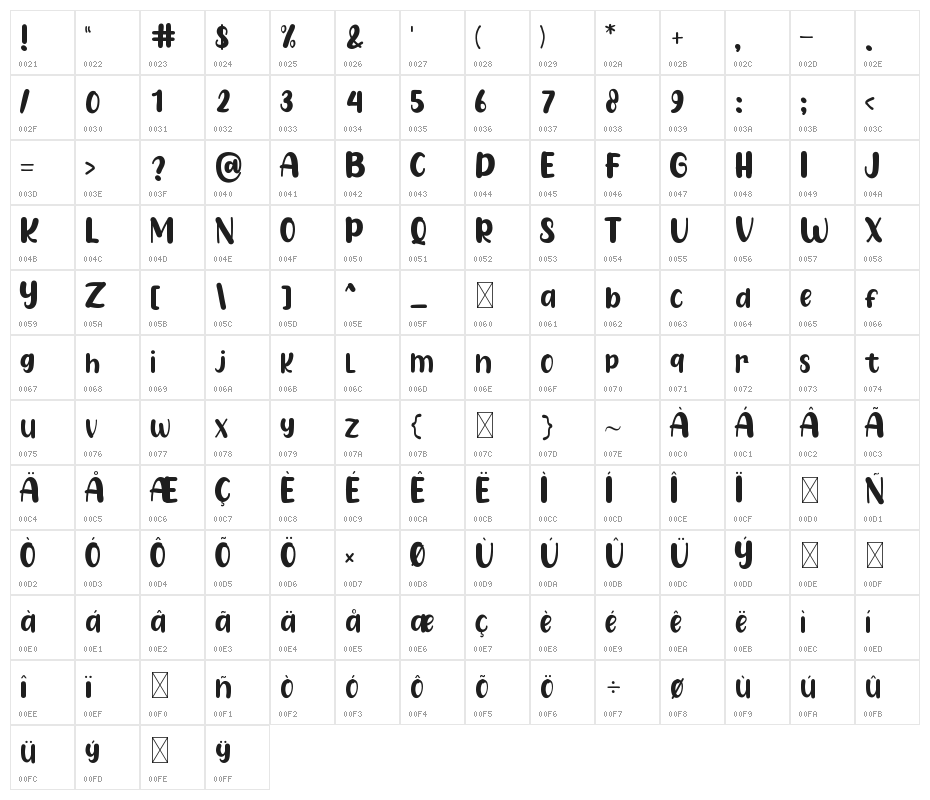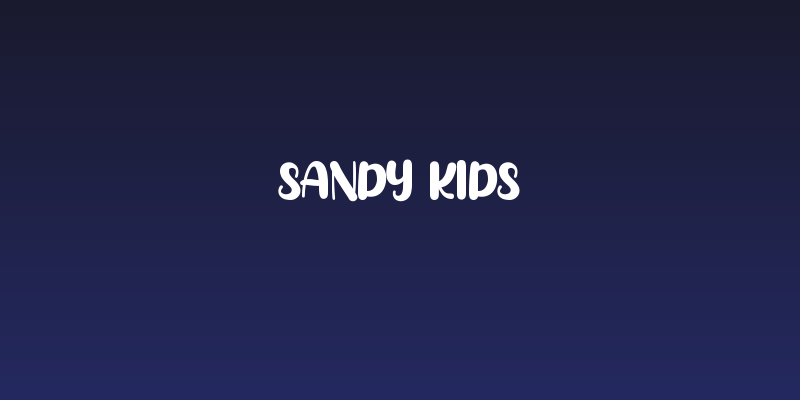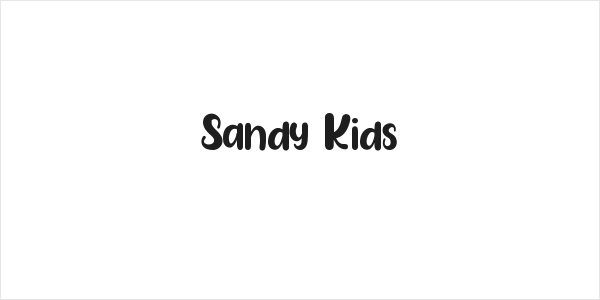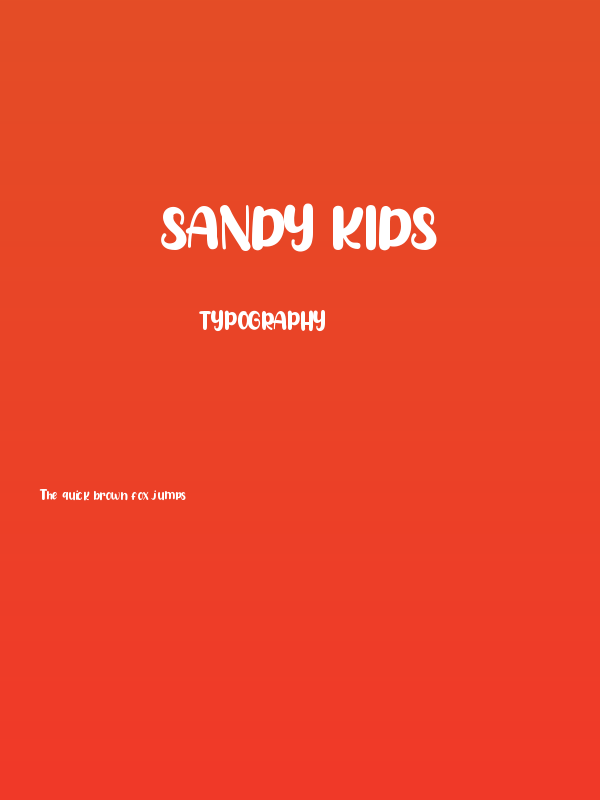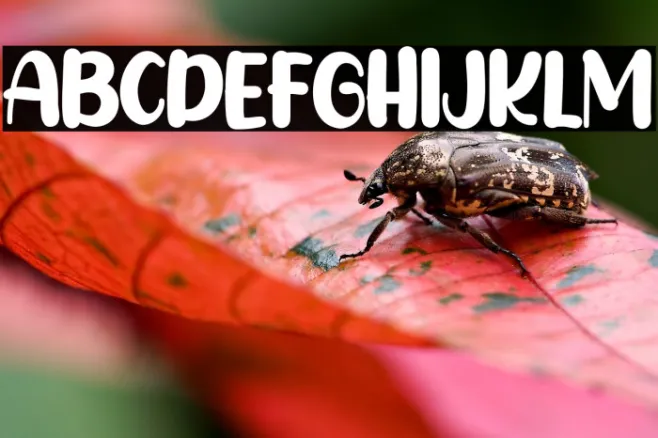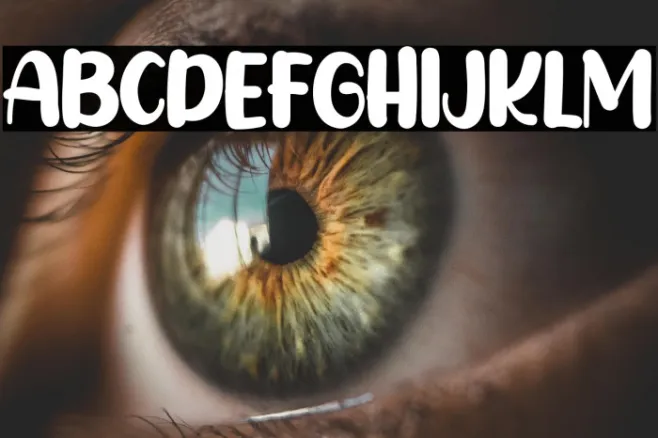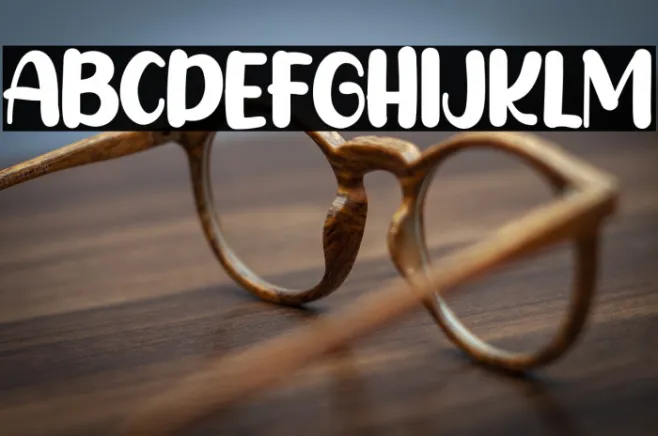
Sandy Kids Font
Sandy Kids Description
This playful and whimsical font features bold, rounded characters with a hand-drawn feel. The letters have a consistent thickness, giving them a uniform appearance, while the slightly irregular shapes add a touch of charm and personality. The uppercase and lowercase letters are well-balanced, and the numbers are clear and easy to read. Special characters are included, maintaining the same playful style. This font is perfect for projects that require a fun and friendly touch, such as children's books, playful branding, or casual invitations.
| Proposed Projects | Ideal for children's books, playful branding, casual invitations, and creative posters. |